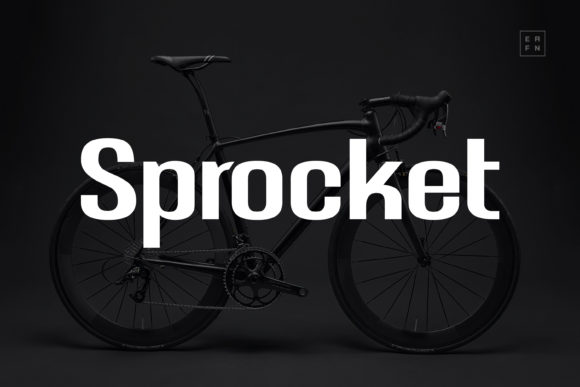
Get ready to spice up your designs with the stunning Sprocket font – a typographic masterpiece that oozes boldness and character. Crafted by the talented BeeType, this display font is a visual treat that will elevate your creations to new heights.
Sprinkle some Chinese New Year cheer into your projects with Sprocket, the perfect font to add a touch of festive flair. Whether you're crafting eye-catching greeting cards, designing digital masterpieces, or giving presentations with a punch, Sprocket has got you covered.
Its cool and crisp lines exude a sense of sophistication, while its bold presence demands attention. It's the ideal choice for adding a touch of chic to your branding, social media posts, posters, and more.
So, why settle for ordinary when you can have extraordinary? Download Sprocket today and watch your designs transform into works of art. Let its bold strokes inspire your creativity and make your projects stand out from the crowd.
Embrace the power of Sprocket and ignite your imagination. It's the font that will make your designs shine brighter than a thousand stars.